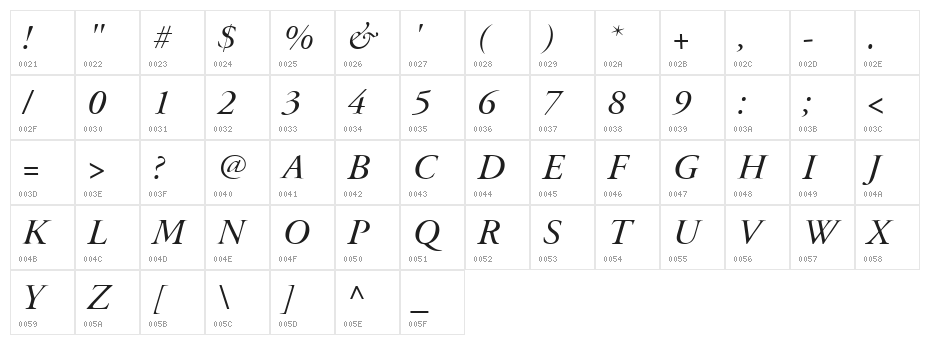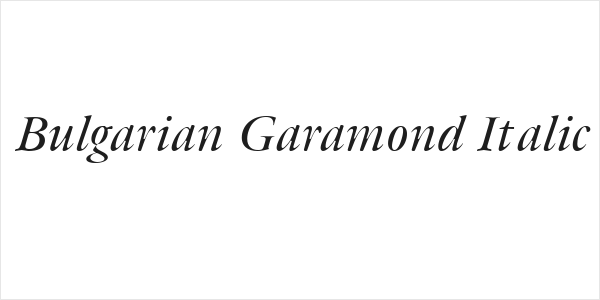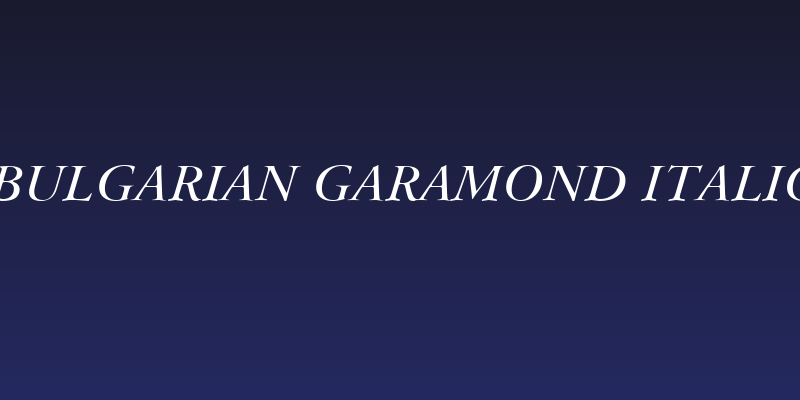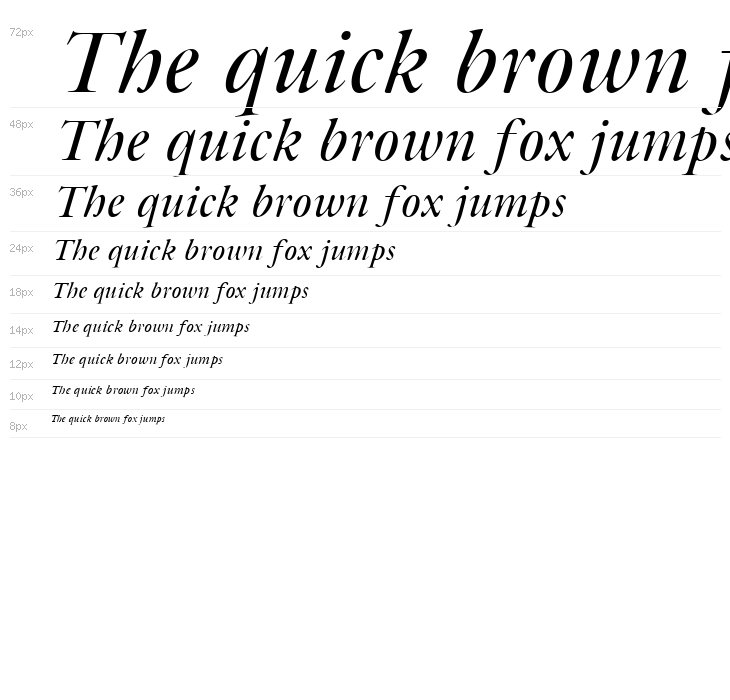
Bulgarian Garamond Italic Font
Bulgarian Garamond Italic Description
This font exudes a classic elegance with its refined, slanted characters that embody the essence of traditional serif typography. The letters are gracefully italicized, adding a sense of movement and sophistication. Each character is meticulously crafted, showcasing delicate serifs and a harmonious balance between thick and thin strokes. The numerals and special characters maintain the same level of elegance, ensuring consistency throughout. This font is ideal for projects that require a touch of timeless beauty and readability.
| Proposed Projects | Perfect for book covers, formal invitations, editorial design, and branding that requires a sophisticated touch. |